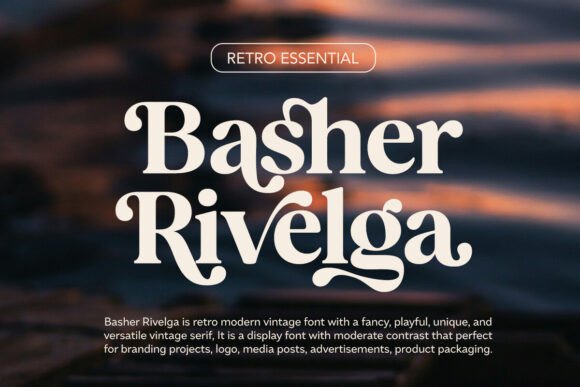
Basher Rivelga Font: Elevate Your Typography with a Harmonious and Stylish Contemporary Serif Typeface
In the realm of typography, a font can make or break the visual appeal of a design. For designers and typographers seeking a harmonious and stylish contemporary serif typeface with a classic feel, Basher Rivelga Font is an exceptional choice. This versatile typeface offers a range of features that make it perfect for a variety of design applications, from elegant headings to refined body text.
What is Basher Rivelga Font?
Basher Rivelga is a thoughtfully crafted contemporary serif typeface that exudes a sense of classic elegance. The font family includes two main styles: upright and italic, each with its own unique character. The swollen stems and italics grow along with the font character, creating a beautiful visual flow that enhances the overall typographic experience.
Key Features of Basher Rivelga Font
- Contemporary Serif Design: Basher Rivelga boasts a modern serif design with a classic feel, making it suitable for a wide range of design applications.
- Two Font Styles: The font family includes two main styles: upright and italic, allowing designers to add variety and emphasis to their typography.
- Swollen Stems and Italics: The swollen stems and italics grow along with the font character, creating a beautiful visual flow.
- OpenType Features: Basher Rivelga supports OpenType features, including ligatures and multi-language support, giving designers greater flexibility and creative control.
- Variable Font Options: The font comes with two versions of Variable Regular and Italic, allowing designers to explore and refine their designs with ease.
The Power of OpenType Features
Basher Rivelga Font takes advantage of OpenType features, which allow designers to apply advanced typographic techniques to their work. Some of the key features include:
Ligatures
Ligatures are special characters that combine two or more letters into a single glyph, creating a more harmonious and flowing text. Basher Rivelga supports ligatures, allowing designers to add a touch of elegance to their typography.
Multi-Language Support
In today’s globalized world, designers often need to create content that caters to diverse languages and cultures. Basher Rivelga supports multiple languages, making it an excellent choice for designers who work on international projects.
Exploring the Variable Font Options
Basher Rivelga Font offers two versions of Variable Regular and Italic, giving designers the flexibility to explore and refine their designs. Variable fonts allow designers to adjust the font weight, style, and other attributes on the fly, making it easier to create nuanced and visually appealing designs.
Benefits of Variable Fonts
- Increased Flexibility: Variable fonts allow designers to adjust the font attributes in real-time, making it easier to experiment and refine their designs.
- Improved Workflow: With variable fonts, designers can create multiple design variations without having to switch between different font files.
- Enhanced Creativity: The flexibility of variable fonts empowers designers to push the boundaries of typography and explore new creative possibilities.
Design Applications for Basher Rivelga Font
Basher Rivelga Font is a versatile typeface that can be used in a variety of design applications, including:
Headings and Titles
The elegant and classic design of Basher Rivelga makes it perfect for headings and titles, adding a touch of sophistication to any design.
Body Text
The font’s clear and readable design also makes it suitable for body text, allowing designers to create refined and polished content.
Branding and Identity
Basher Rivelga can be used to create stunning brand identities, from logos to marketing materials, helping businesses establish a strong visual presence.
| Font Name | Basher Rivelga Font |
Basher Rivelga Font is a harmonious and stylish contemporary serif typeface that offers a range of features and benefits for designers. With its classic feel, swollen stems, and OpenType features, this font is perfect for designers seeking to elevate their typography and create visually stunning designs. Whether you’re working on a branding project, creating headings and titles, or refining your body text, Basher Rivelga is an excellent choice.
Get Ready to Elevate Your Typography
Discover the power of Basher Rivelga Font and take your typography to the next level. With its versatility, flexibility, and classic design, this font is sure to become a staple in your design toolkit.